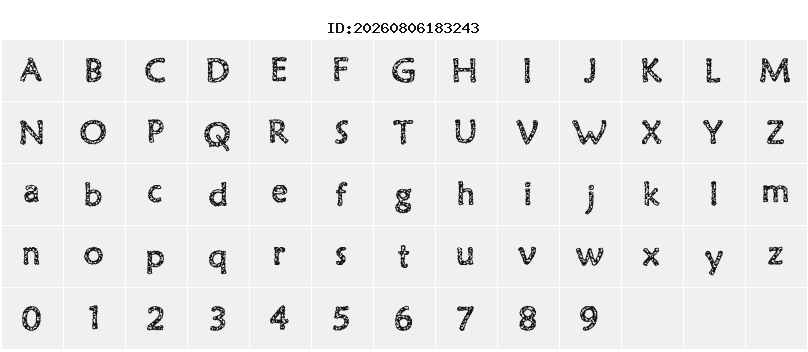
• Font Name: Old Virus
• Full Font Name: Old Virus
About Old Virus.ttf
Old Virus.ttf is a modern, elegant sans-serif font designed for ultimate readability and visual harmony. Perfect for branding, headlines, web design, and print materials.